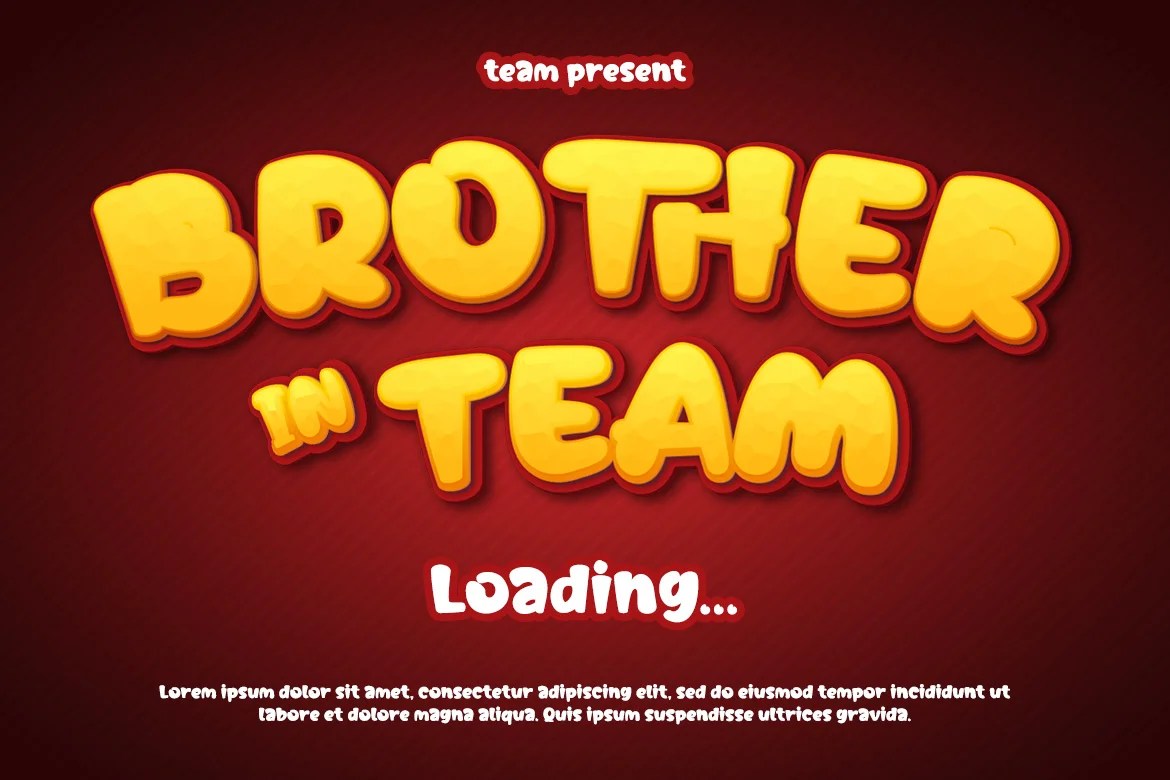
Good fonts for banner design need to read clearly at a distance, whether that’s a street banner, an event poster, or a digital ad. Here are six Twinletter display fonts built with that kind of bold, attention-grabbing presence, each with a slightly different personality.
A banner usually gets a second or two of a passerby’s attention, which means fonts for banner design have to communicate instantly — no time for a viewer to puzzle out a clever but hard-to-read typeface. Outdoor advertising guidance consistently recommends bold, legible typefaces with strong contrast against the background, since thin lines and decorative scripts tend to fade or break up once viewed from a distance. Bold, high-contrast letterforms consistently outperform delicate or overly decorative type in this kind of fast-glance context.
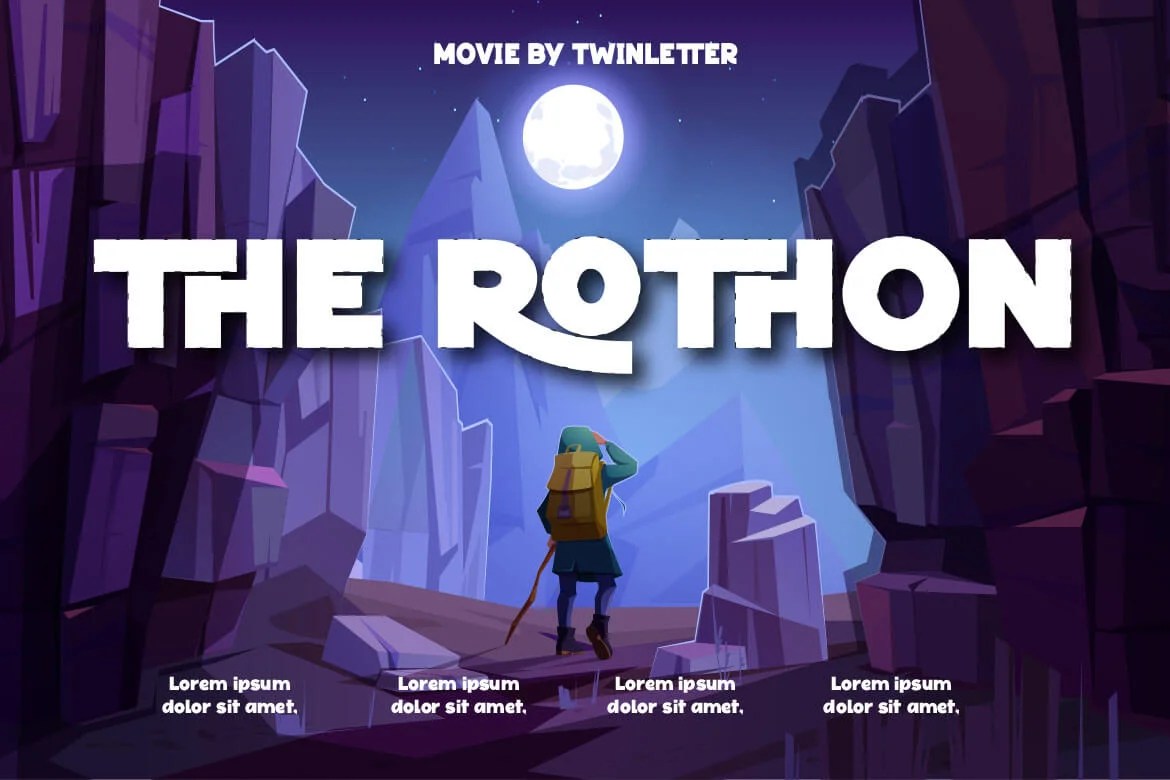
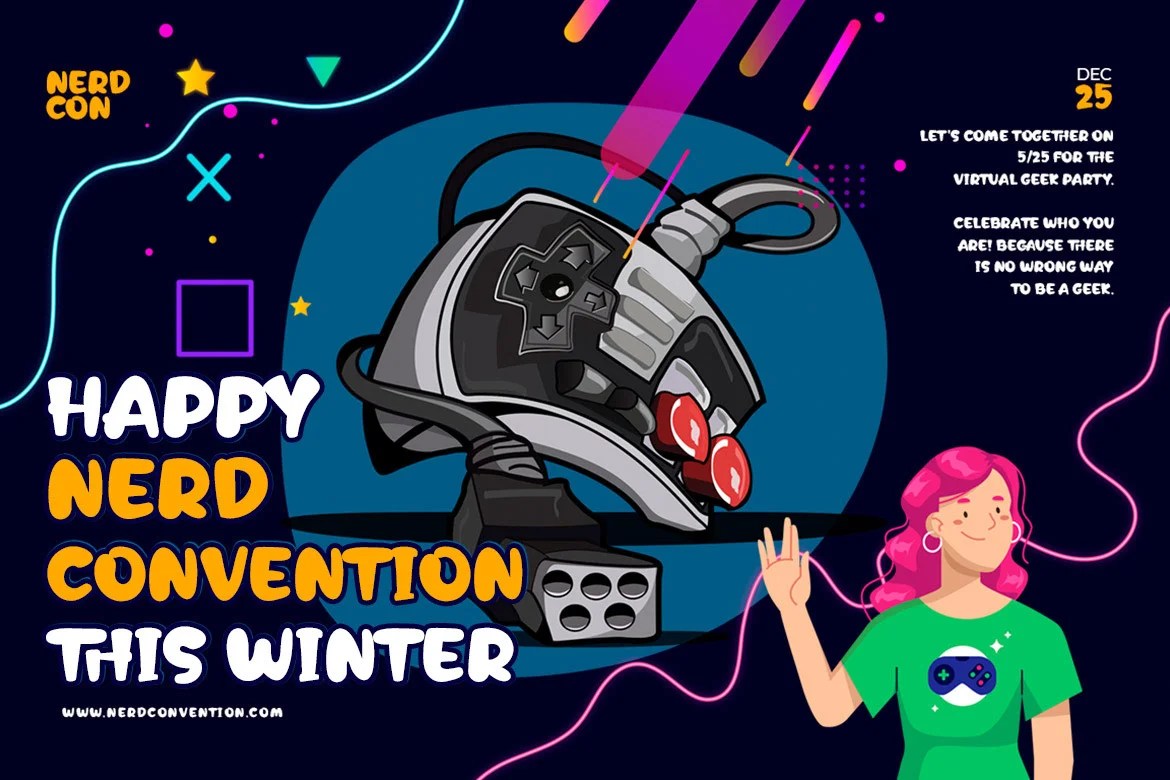
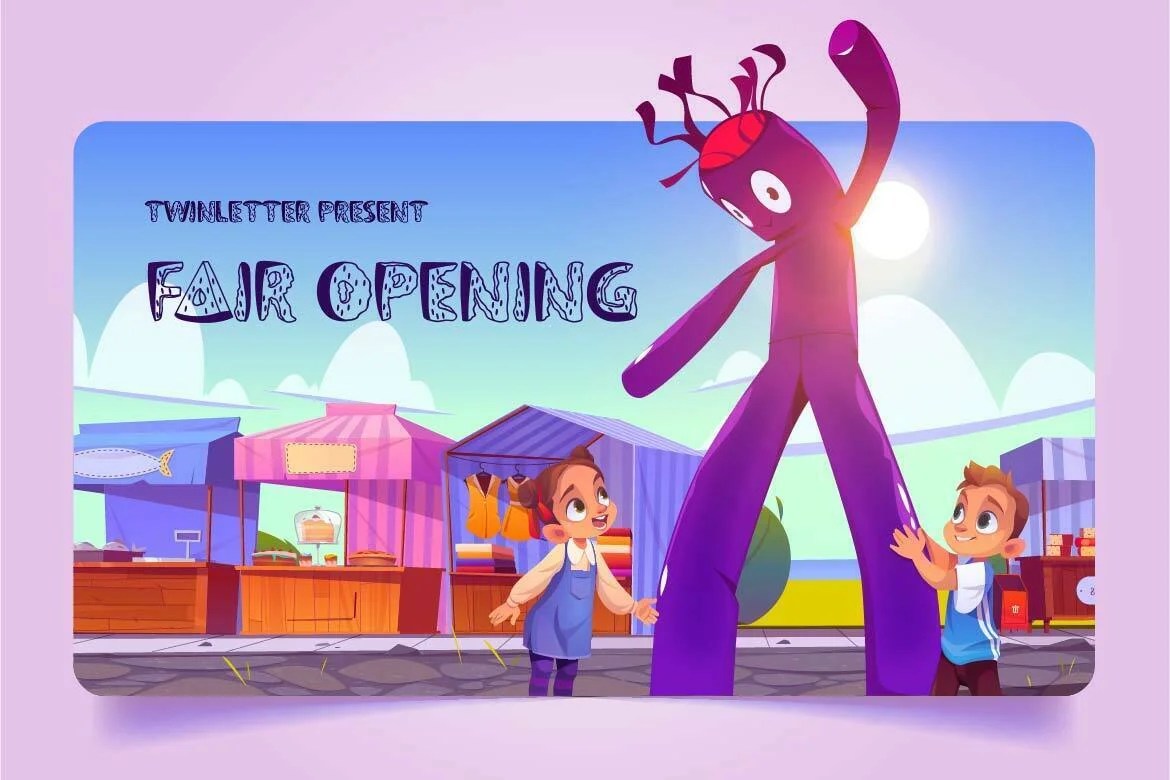
Pethuk — a “bamboo-themed” display typeface described as “distinctive, elegant, and versatile,” with what Twinletter calls a “bombastic flair” suited to outdoor and event signage.
Semanko — a “lively” typeface with a “unique and appealing shape,” positioned as suitable across children’s, youth, and adult-themed banners.
Raphia — described as “one-of-a-kind” with a “powerful, bold, and noticeable character,” built to maximize visual presence.
Laout Beauty — a “playful” font that’s “incredibly adaptable” for all ages and genders, suited to a wide range of event and community banners.
Black Foroth — an “elegant yet fun relaxed” typeface that combines “serious and relaxed themes,” useful when a banner needs to feel credible without going stiff.
Gallazzi — described as “smooth, cool, and cute,” built to make a banner feel “bolder” through visual harmony rather than sheer weight.
Beyond those individual leanings, all six fonts for banner design share the same broader use case and feature set. Twinletter positions all of them for games, sporting events, branding, movie titles, book titles, quotes, and logotypes — so any of the six can extend from a physical banner into a brand’s wider marketing materials.
Since all six fonts for banner design come from the same product generation, the fastest way to narrow it down is to mock up your actual banner text in two or three type testers and step back from the screen to check legibility at a distance.
What makes a font work well for banners specifically, compared to other display use? Legibility at a distance and at a glance — bold, high-contrast letterforms that a passerby can read in a second or two, rather than delicate or overly decorative type that needs closer inspection.
Can these fonts be used for anything besides banners? Yes — all six are also positioned for games, sporting events, branding, movie titles, book titles, quotes, and logotypes, alongside banner and poster design.